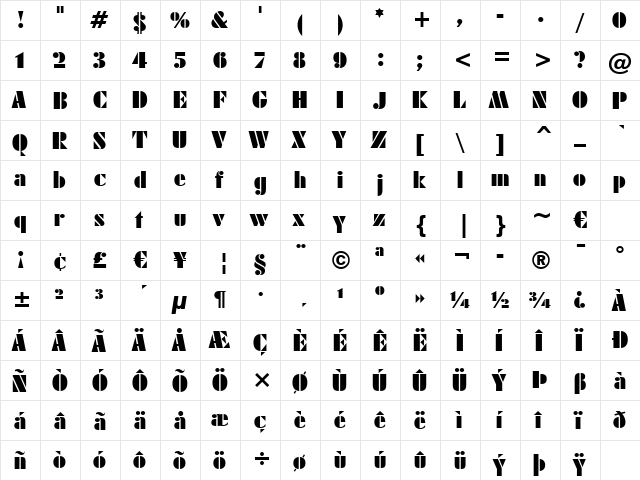
FuturaBlack BT Regular
Design Context for FuturaBlack BT Typeface
FuturaBlack BT channels digital-age aesthetics through its sharp, structured letterforms — ideal for brands that want to signal innovation.
Pro Tip: Try FuturaBlack BT with generous letter-spacing in UI labels and navigation — the geometric forms benefit from room to breathe.